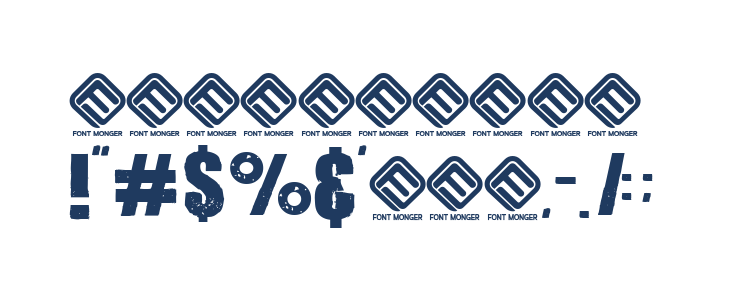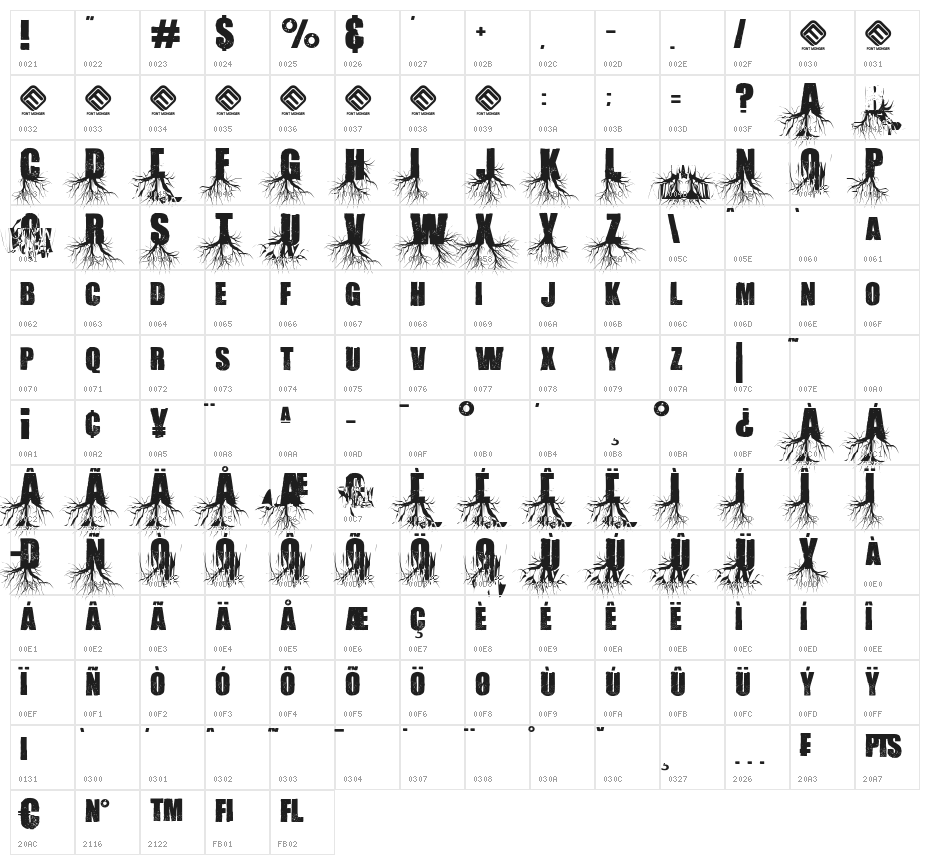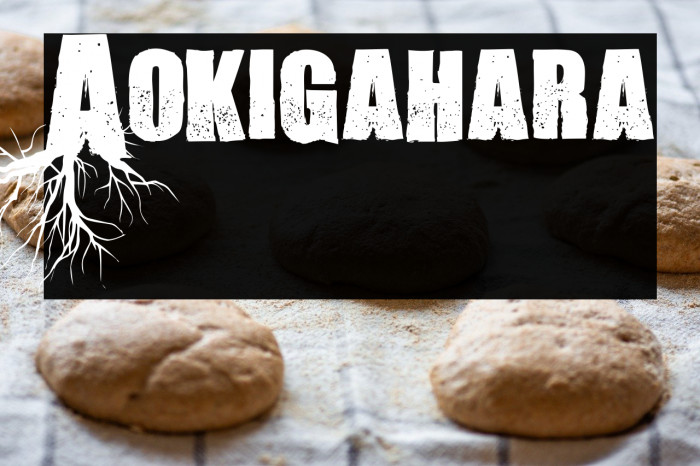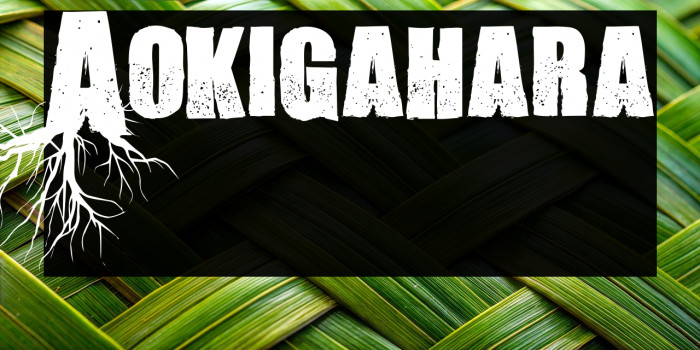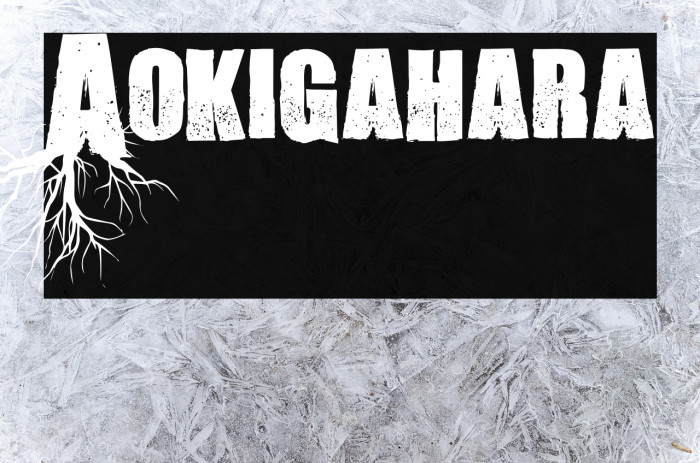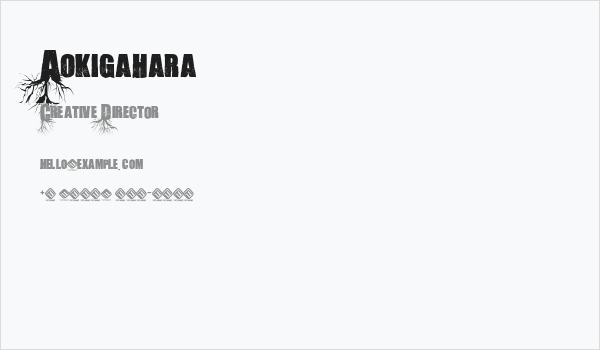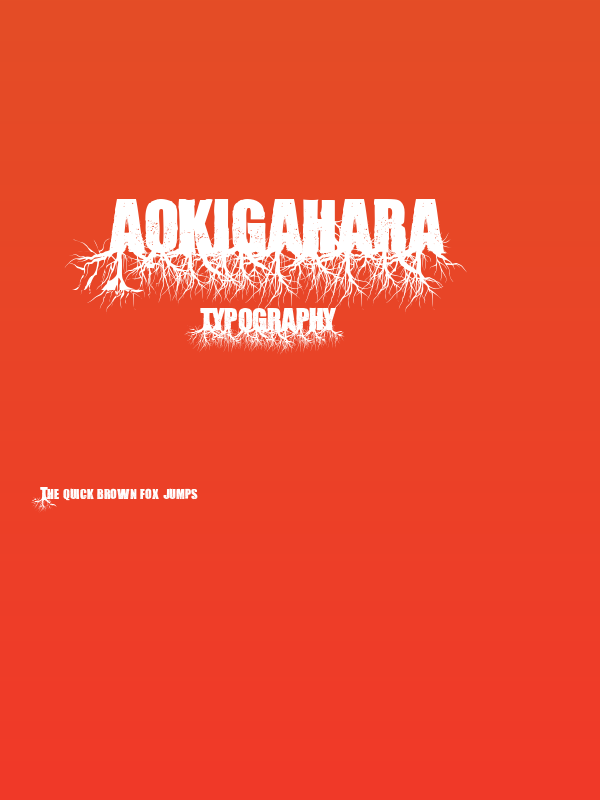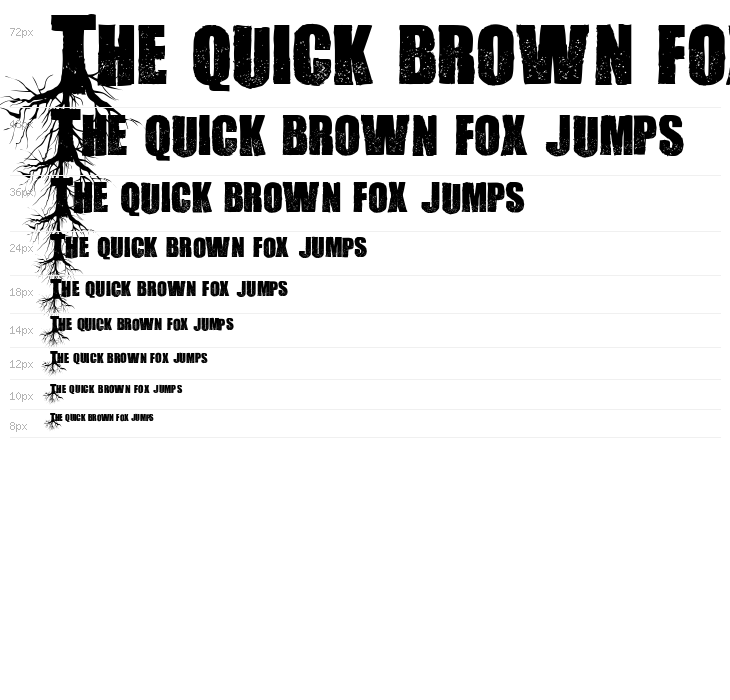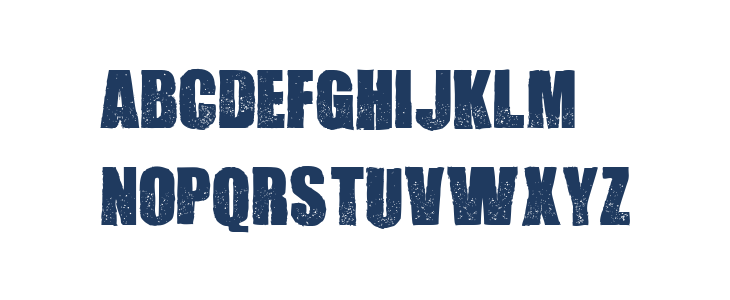
Aokigahara Font
Aokigahara Description
This font features a bold and rugged design with a distressed texture that gives it a grungy, worn-out appearance. The uppercase letters are prominent and impactful, making them suitable for attention-grabbing headlines. The texture adds a sense of depth and character, reminiscent of urban graffiti or vintage posters. The characters are tightly spaced, enhancing the boldness and making the font ideal for creating a strong visual statement. The overall style is decorative and edgy, perfect for projects that require a touch of rebellion or a gritty aesthetic.
| Proposed Projects | Ideal for music album covers, event posters, urban-themed designs, and branding that requires a rugged, edgy look. |